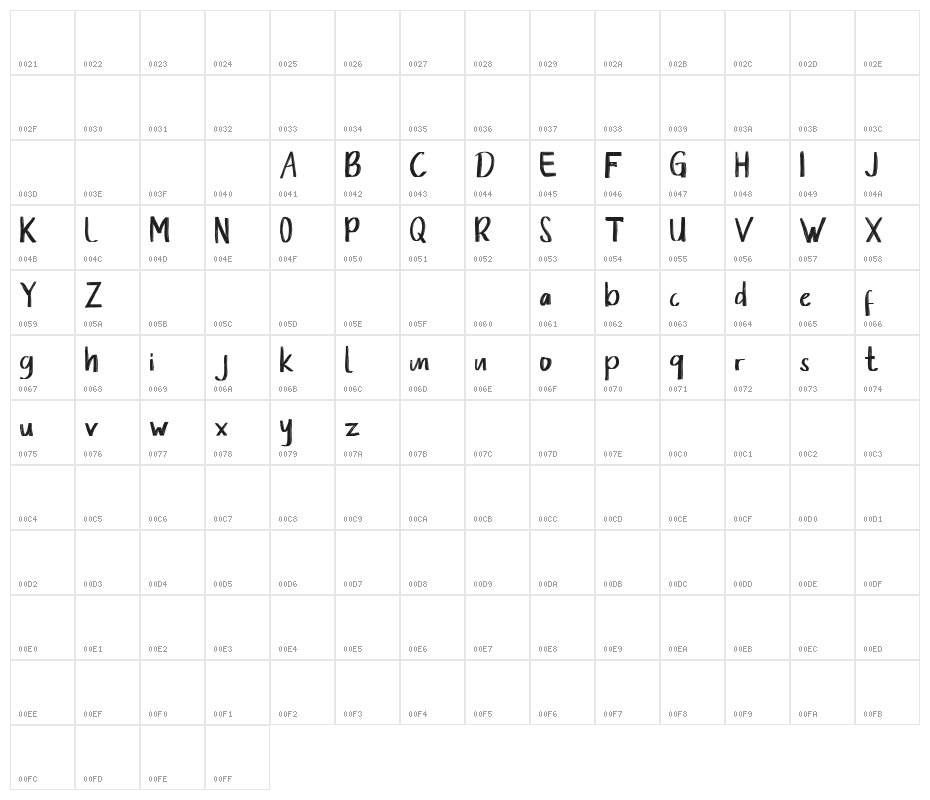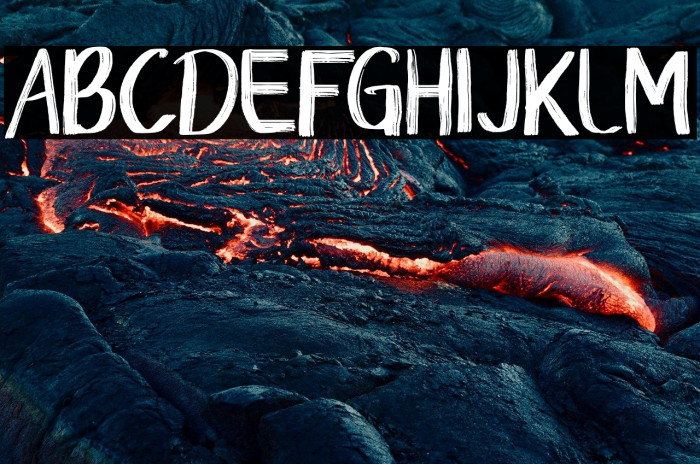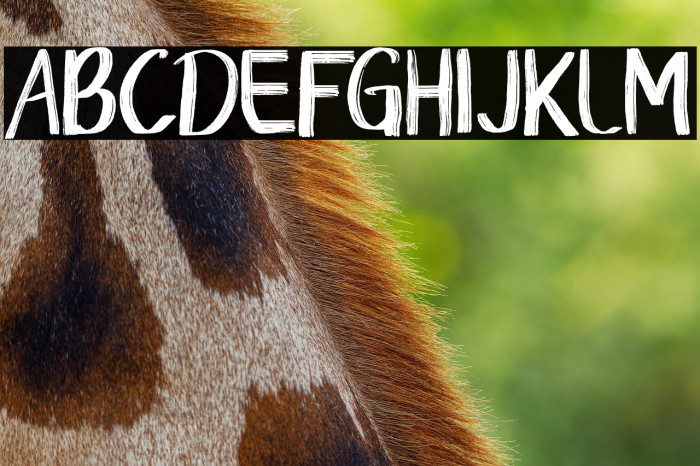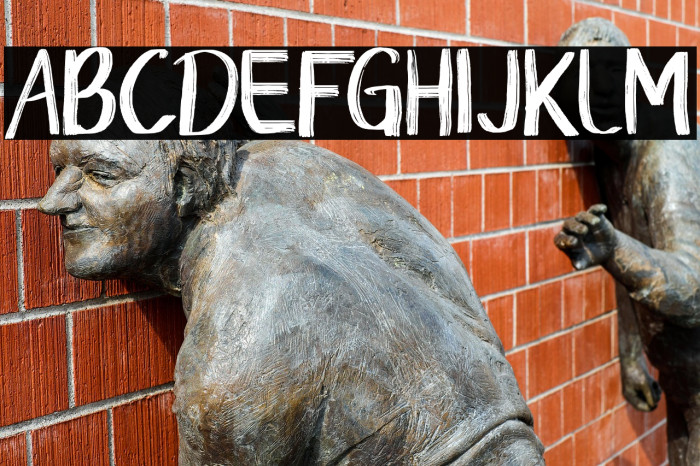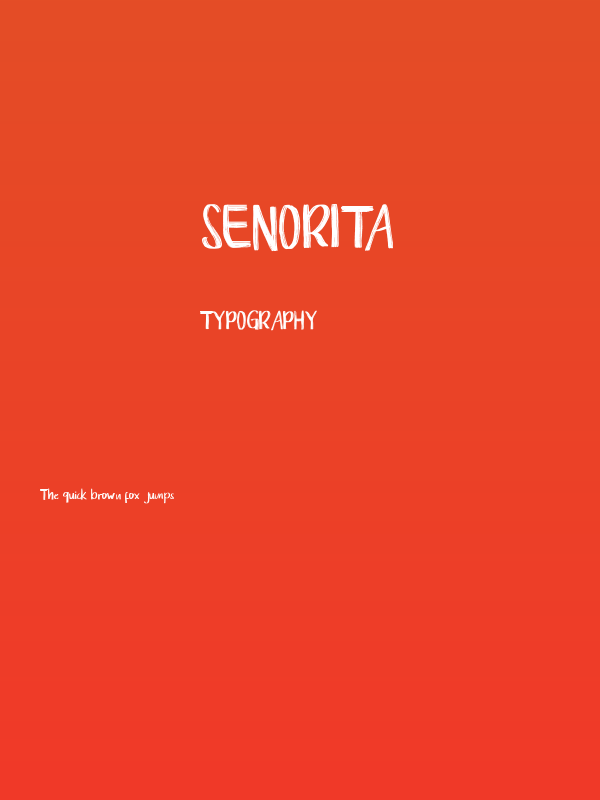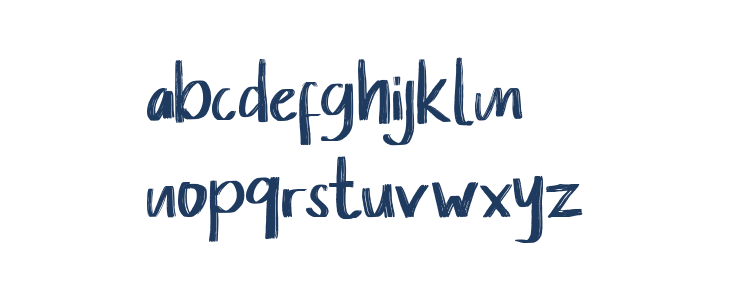
Senorita Font
Senorita Description
This font exudes a playful and artistic vibe, characterized by its brush-like strokes and uneven edges. The letters have a hand-drawn appearance, with varying thickness that adds a dynamic and lively feel. The uppercase and lowercase letters maintain a consistent style, with some letters featuring unique flourishes that enhance their individuality. The numbers and special characters follow the same aesthetic, ensuring a cohesive look across all glyphs. This font is perfect for projects that require a personal touch or an informal, creative atmosphere.
| Proposed Projects | Ideal for greeting cards, posters, branding materials, and social media graphics where a personal and creative touch is desired. |